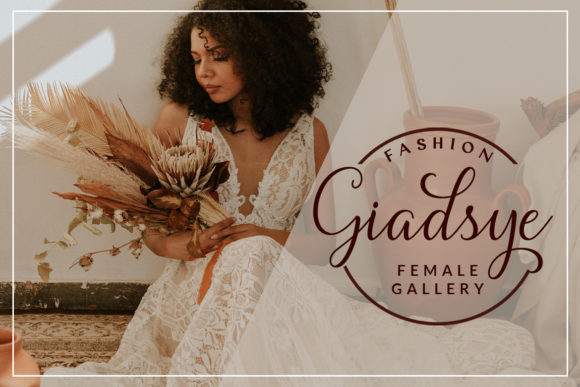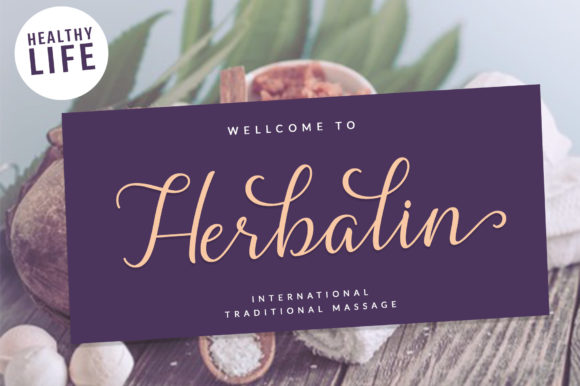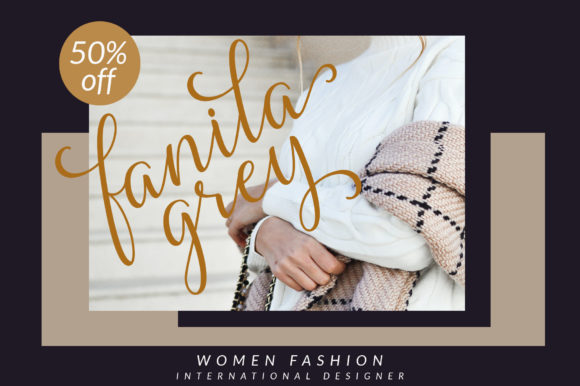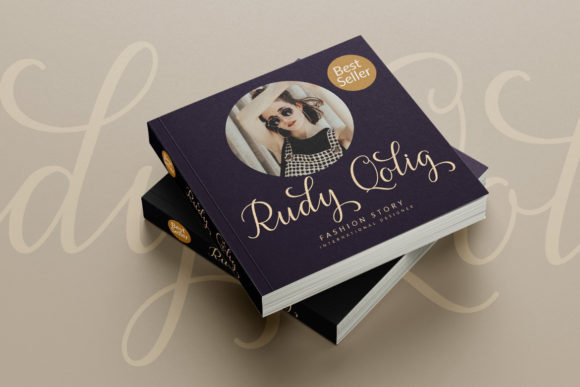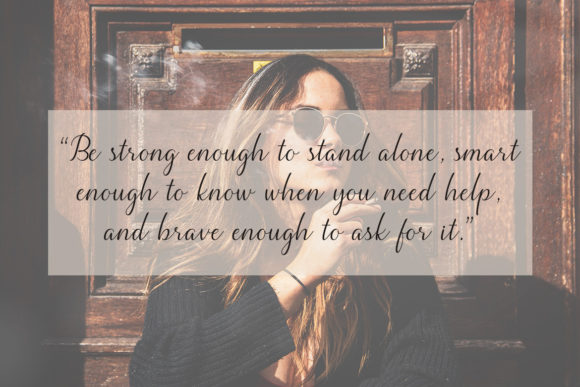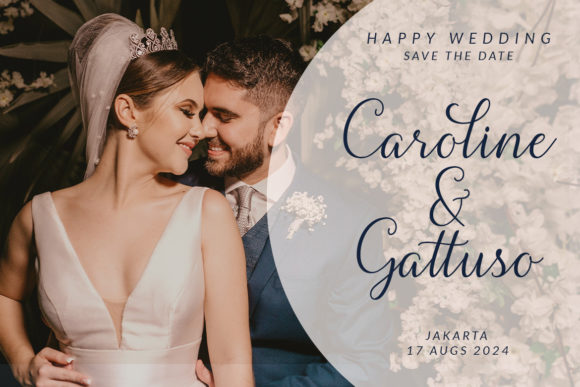
Introduction to Luisina Font
Imagine you’re sipping coffee on a Sunday morning, surrounded by design books and a blank canvas. You’re about to start a new creative project, and the right font can make all the difference. That’s where Luisina Font comes in – a delicate handwritten font that’s perfect for adding a touch of elegance to your design.
As a designer, you know how hard it can be to find the perfect font to match your vision. But Luisina Font is more than just a pretty face. It’s a design resource that’s PUA encoded, making it easy to access all the glyphs and swashes you need to create high-quality designs. Whether you’re working on a free download project or a commercial design, Luisina Font is a valuable addition to your toolkit.
With its stylish lettering and transparent background, Luisina Font is the perfect choice for designers who want to add a pop of personality to their work. In this article, we’ll take a closer look at what makes Luisina Font so special and how you can use it to take your designs to the next level.
Luisina Font
- Unique, elegant script font suitable for creative projects and design resources.
- High-quality font with a transparent background, ideal for use on various backgrounds.
- Comes in a single weight, perfect for those who want a simple yet elegant design resource.
- Features a high-resolution design, suitable for print and digital applications.
- Supports a wide range of languages, making it a versatile design resource.
Honest Review: Luisina Font
As a designer, I’m always on the lookout for high-quality design resources to elevate my creative projects. Recently, I stumbled upon the Luisina Font, and I must say it’s been a game-changer.
What works well: ✨ The font is incredibly versatile, with a mix of modern and vintage elements that make it perfect for a wide range of design applications. The transparent background feature is also a plus, allowing for seamless integration with any design.
- High-quality design with a unique blend of modern and vintage elements.
- Transparency feature for easy integration with other designs.
- Perfect for creative projects, including branding, web design, and print materials.
However, I do have a few reservations: ⚠️ The font could benefit from more weights and styles to give designers more flexibility. Additionally, some users may find the font too ornate, which could limit its use in certain design contexts.
Overall, I’m impressed with the Luisina Font, and I would definitely recommend it as a design resource. While it’s not perfect, its unique blend of styles and high-quality design make it a valuable addition to any designer’s toolkit. And the best part? It’s free to download!
Luisina Font
Luisina Font is a free design resource that can elevate your creative project with its high-quality, elegant style. This versatile font is perfect for various applications, from digital to print media.
Tips for Getting the Most Out of Luisina Font
To get the most out of Luisina Font, try using it with a transparent background to create a clean and modern look. Experiment with different font sizes and styles to add depth and visual interest to your design.
Common Use Cases for Luisina Font
Luisina Font is perfect for:
1. Branding and logos
2. Digital marketing materials
3. Print media, such as business cards and brochures